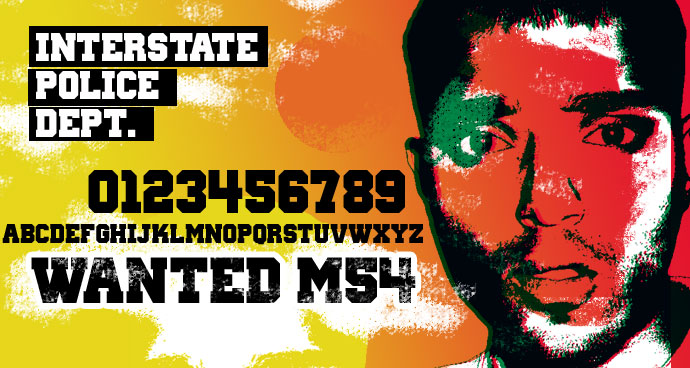
A bolder variation of the classic collegiate style typeface. Great for t-shirts, apparel design and kit numbers. Will also look great on posters. If you find this font useful then please consider a donation to justme54s[at]yahoo.co.uk, any amount will be greatly appreciated. A donation isn't necessary to use this font for personal or non-commercial use. I'll be interested to know how people use it so a picture or artwork sent to justme54s[at]yahoo.co.uk would be nice. If you wish to use this font commercially a donation or license is required, please email for further information. Alternatively, for one time commercial use just send details of usage along with your donation so that a return email can be sent as proof of rights to commercial usage. Usage Agreement You may not host this font anywhere online as it is hosted exclusively at FontSpace.com and Dafont.com. Any links for downloads should be directed to FontSpace or Dafont. You may share the font electronically but the Zip file should remain intact with the font alongside all other files as packaged. You may not sell this font, but are allowed to distribute it freely i.e. in magazines. |